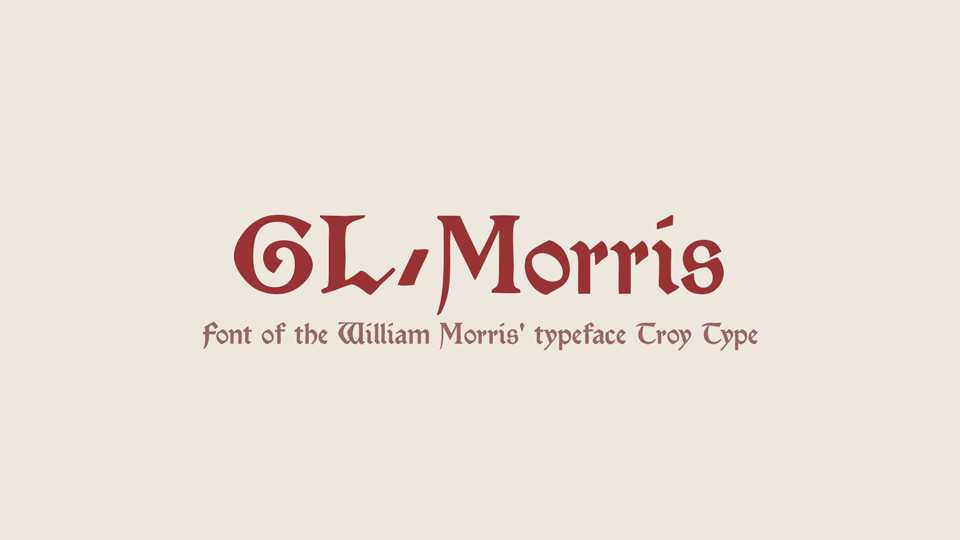
Download GL-Morris font, a blackletter typeface inspired by the timeless elegance of William Morris’ Troy Type. This typeface pays homage to the Arts and Crafts movement, encapsulating the spirit of Morris’ intricate designs and commitment to craftsmanship.
Designer: Gutenberg Labo